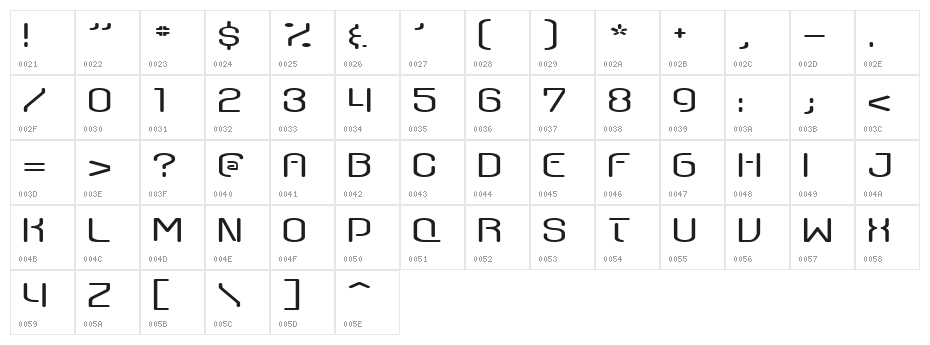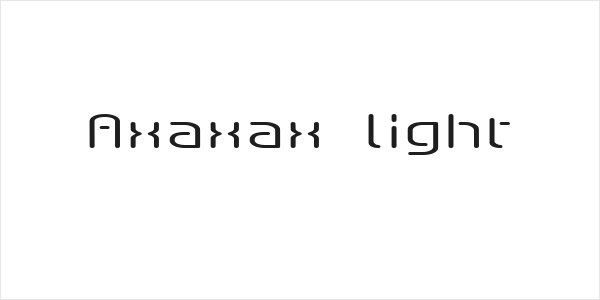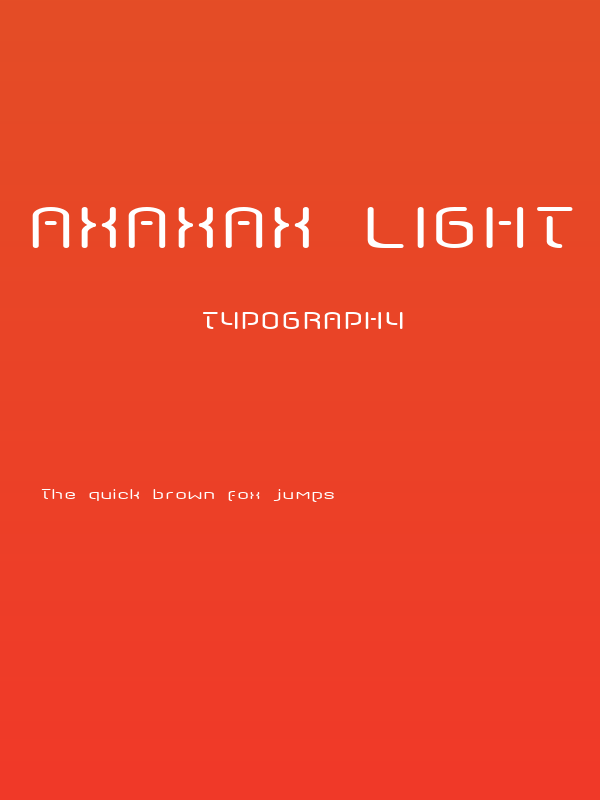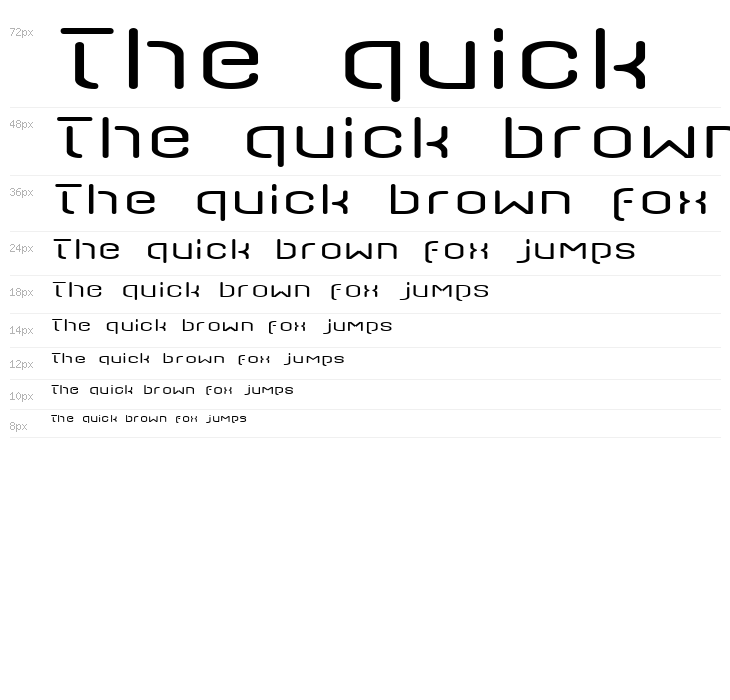
Axaxax light Font
Axaxax light Description
This font features a modern, geometric design with rounded edges and a clean, minimalist aesthetic. The characters are evenly spaced, providing a balanced and harmonious look. The uppercase and lowercase letters maintain a consistent style, with subtle variations that add visual interest. The numerals are clear and easy to read, making them suitable for various applications. Special characters are designed with the same attention to detail, ensuring they blend seamlessly with the rest of the font. Overall, this font exudes a contemporary and professional vibe, making it versatile for a wide range of uses.